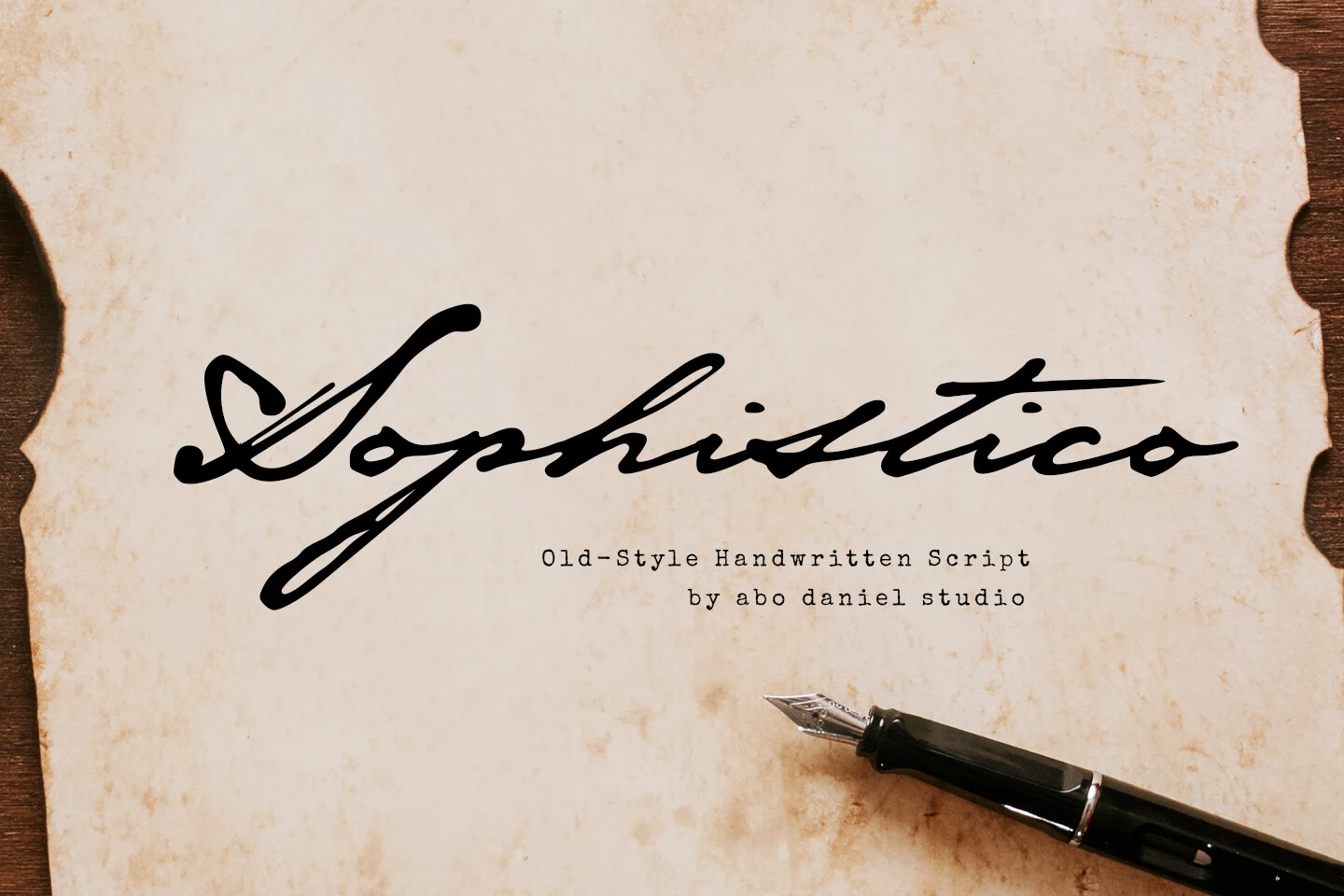
25 Best Vintage Calligraphy Fonts for 2026
Vintage Calligraphy Fonts span delicate monoline scripts, high-contrast penmanship, heavy retro lettering, and even angular display forms. Their practical roles range from wedding stationery and product labels to logos, posters, social graphics, and short headline treatments, with scale and readability determining the best fit.
Vintage Calligraphy Fonts
Vintage Calligraphy Fonts in this group emphasize connected construction, high contrast, slanted rhythm, and prominent flourishes. They are generally more ornamental and invitation-focused than the lighter handwritten scripts or heavier display outliers.
Vintage Calligraphy Font
Vintage Calligraphy Font featuring high stroke contrast and connected cursive letterforms
Vintage Calligraphy Font combines high contrast with connected cursive forms, mixed slant variations, and pronounced swashes. Its decorative old-world presence suits labels, cards, invitations, and other short phrases, but those flourishes can compromise clarity at small sizes.
Youngboy Font
Youngboy Font featuring interconnected cursive letterforms, high stroke contrast, and sweeping terminal flourishes.
Youngboy Font establishes a controlled direction through its consistent right-leaning rhythm, high contrast, and sweeping terminal flourishes. The interconnected lettering feels ornate without losing its shape at display scale, making it a stronger choice for branding, packaging, signage, and brief invitation wording than dense text.
Sophistico Font
Sophistico Font featuring connected, right-leaning calligraphic letters with high stroke contrast and expressive swashes.
Sophistico Font reads as early-20th-century penmanship through high thick-thin contrast, a rightward slant, connected forms, and the specially emphasized initial S. Its opening swash gives headlines and invitations a distinctive Vintage Calligraphy Fonts treatment, while the intricate structure is best reserved for short display lines.
Meighan Script Font
Meighan Script Font features connected cursive letters, a pronounced rightward slant, and extended decorative swashes.
Meighan Script Font bridges Vintage Calligraphy Fonts and contemporary branding with thick elegant strokes, a pronounced right slant, and extended swashes. It can headline logos, product labels, posters, wedding designs, and letterhead, provided the lettering has enough room for its flourishes to remain distinct.
Miraclin Font
Miraclin Font displaying connected, slanted cursive letters with high contrast and decorative swashes.
Miraclin Font is defined by dramatic sweeping curves, high contrast, and decorative swashes that point directly toward invitation work. Its connected loops can carry names, quotes, and other brief display wording effectively, but reduction quickly erodes the letter shapes.
Vintage Calligraphy Font
Vintage Calligraphy Font featuring high contrast between thick and thin strokes and fluid connected letterforms
Vintage Calligraphy Font suits wedding-focused lettering through dramatic loops, high contrast, and thin connecting strokes that create a personalized invitation rhythm. It reads well at invitation scale and can carry brief romantic wording, but those fine connections become fragile when the design is reduced.
Marley Heritage Font
Marley Heritage Font is a connected calligraphy script with high stroke contrast, pronounced slant, and elongated sweeping swashes.
Marley Heritage Font builds its Vintage Calligraphy Fonts character from thin line strokes, a pronounced slant, and elongated lead-in and terminal swashes. It works across logos, branding, wedding designs, and social media graphics, though high contrast and flourishes reduce readability once the lettering becomes small.
Syiterlla Outline Font
Syiterlla Outline Font features interconnected calligraphic letters with high stroke contrast, a forward-leaning slant, and elaborate flourishes.
Syiterlla Outline Font is designed for short lettering that benefits from high contrast, connected forms, swashes, ligatures, and alternate characters. Those extra glyph options can distinguish logos, wedding designs, and invitations, but the flourishes still require large sizing for the customized details to remain legible.
Vintage Millenia Font
Vintage Millenia Font displaying connected cursive letterforms with high stroke contrast, pronounced rightward slant, and decorative swashes.
Vintage Millenia Font combines exaggerated loops, rounded terminals, high contrast, and a stable baseline. That steadier alignment keeps headlines, logos, invitations, and wedding designs controlled even as the connected strokes add ornament. The interlinked forms remain too complex for body text.
How to Choose the Right Font
Choose by construction first: high-contrast scripts with joins and swashes need large, short wording, while monoline styles offer a calmer read. Use heavy scripts for stronger social or poster impact, irregular baselines for a signature feel, and the angular Antique Collection Font when connected Vintage Calligraphy Fonts would be too expected.